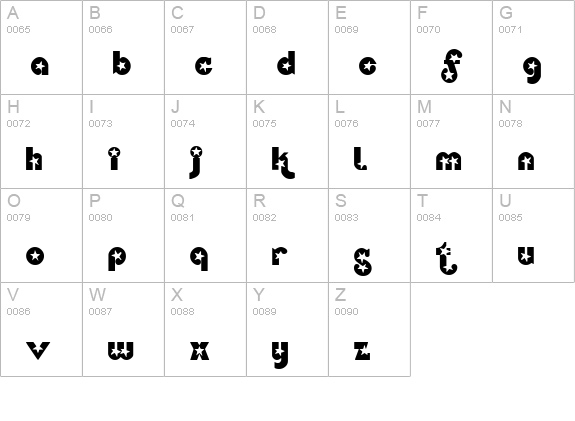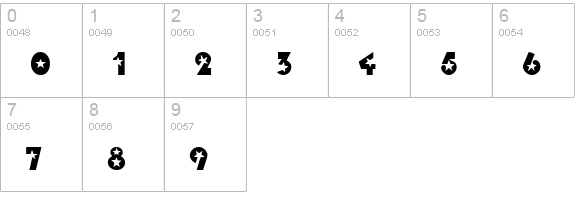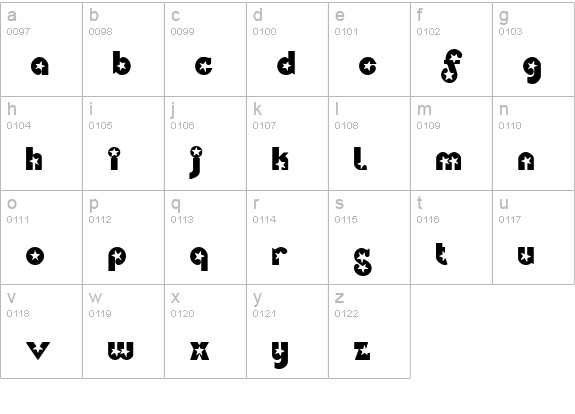
Independence Font Details
Independence font is a stunning and versatile typeface that captures the essence of freedom and independence. With its bold and clean lines, this font exudes a sense of confidence and individuality. Whether used for headlines, logos, or body text, Independence font is sure to make a bold statement. This font is not only visually appealing but also easy to read, making it perfect for a wide range of design projects. Its unique design elements add a touch of elegance and sophistication, making it suitable for both professional and personal use. One of the best things about Independence font is that it is freely available to download at FontsMarket.com. This means that you can easily access this font and add it to your collection without any hassle. Whether you are a designer, a student, or anyone in need of a high-quality font, Independence font is the perfect choice. Don't miss out on the opportunity to enhance your designs and express your creativity with Independence font. Download it for free at FontsMarket.com and unleash your imagination.